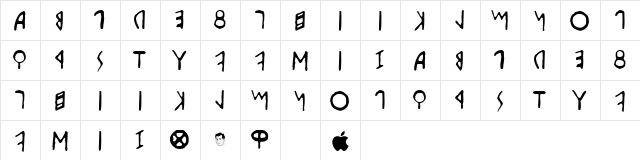
Etruscan Regular
Design Context for Etruscan Typeface
Etruscan takes a measured approach to typography — its balanced proportions and neutral character make it a reliable workhorse for both digital and print work.